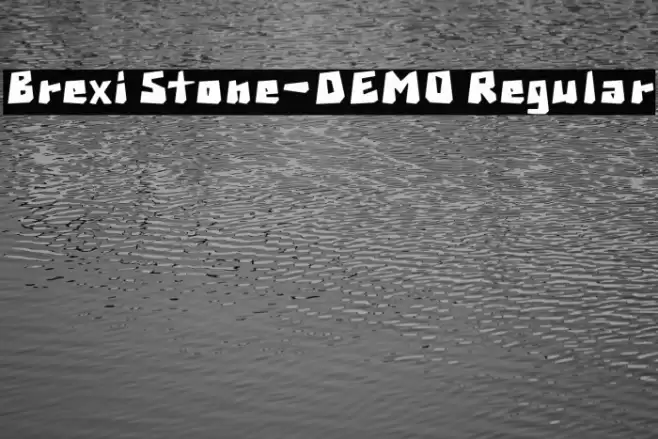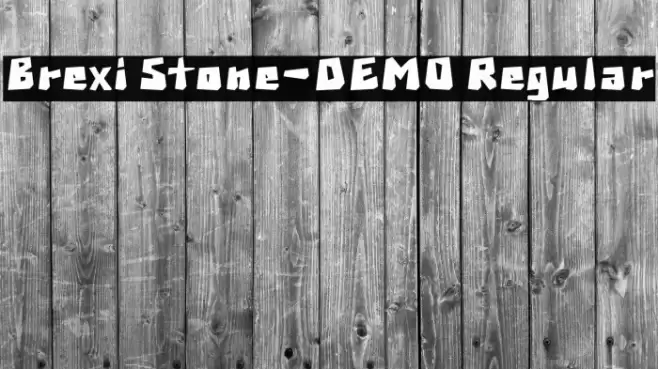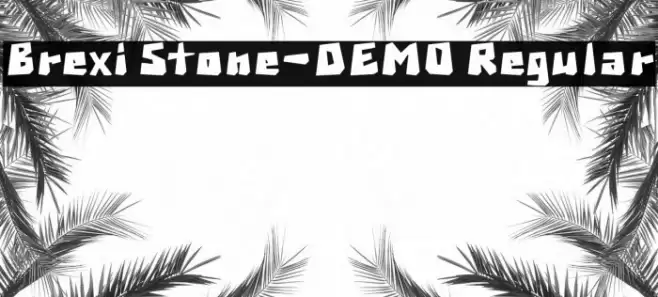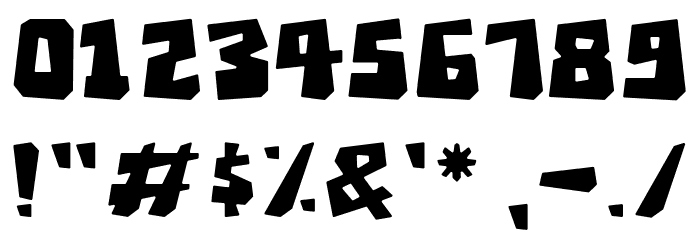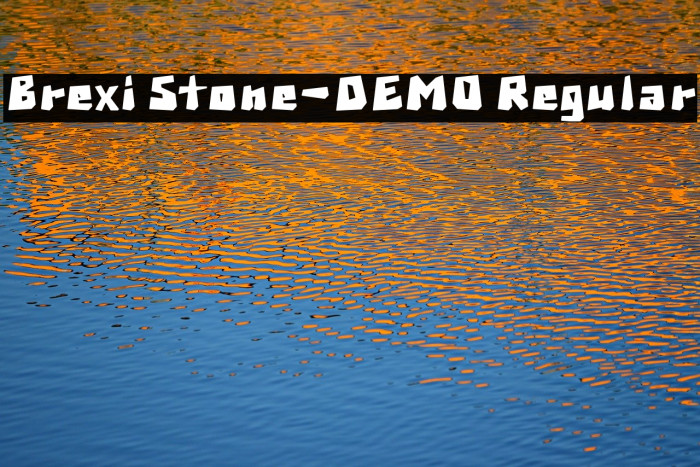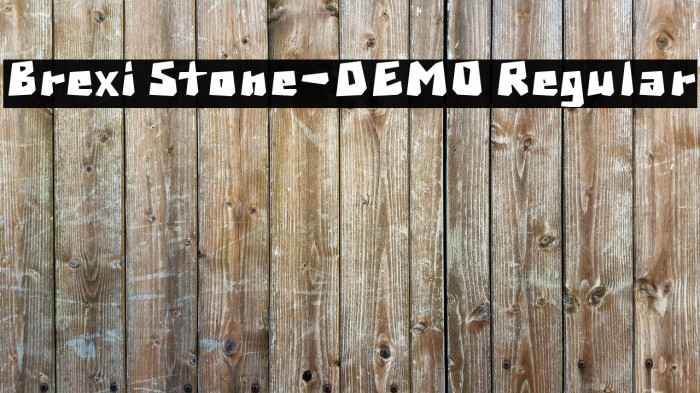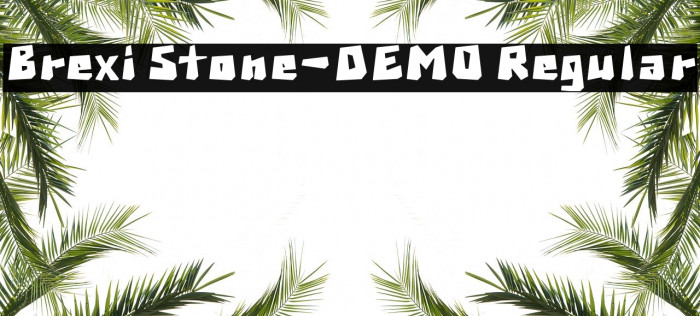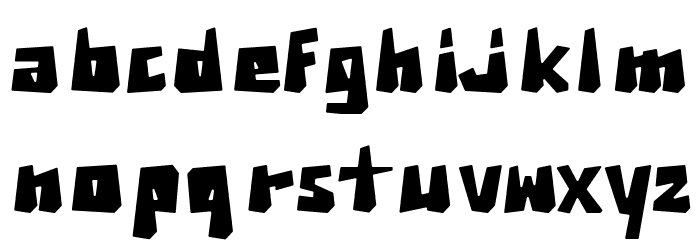
Brexi Stone-DEMO Regular Font
Brexi Stone-DEMO Regular Description
This font features a bold and angular design, characterized by its sharp, geometric shapes and strong presence. The letters are crafted with irregular edges, giving them a rugged and edgy appearance. The uppercase and lowercase letters maintain a consistent style, with each character exhibiting a unique, hand-chiseled look. The numbers and special characters follow the same aesthetic, ensuring a cohesive visual experience. This font's distinct style makes it stand out, ideal for projects that require a bold and unconventional typeface.
A bold, angular font with a rugged, geometric design from Cartoon fonts.
- Proposed Projects: Ideal for posters, album covers, video game graphics, and branding that requires a bold, edgy look.
- Overall Style: Modern, Decorative